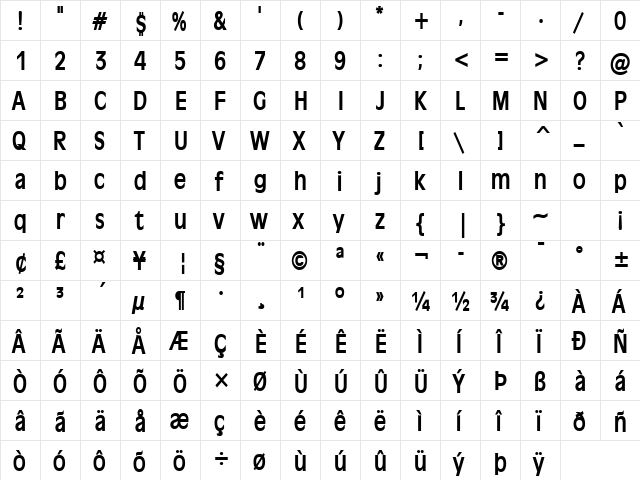
Antiqua 101 Condensed Bold Font Preview
Design Context for Antiqua 101 Condensed Typeface
Antiqua 101 Condensed is a composed and adaptable typeface that performs quietly and consistently across a wide range of design contexts. The heavy weight commands attention and anchors typographic hierarchies. The condensed width makes it efficient for tight spaces without sacrificing legibility.